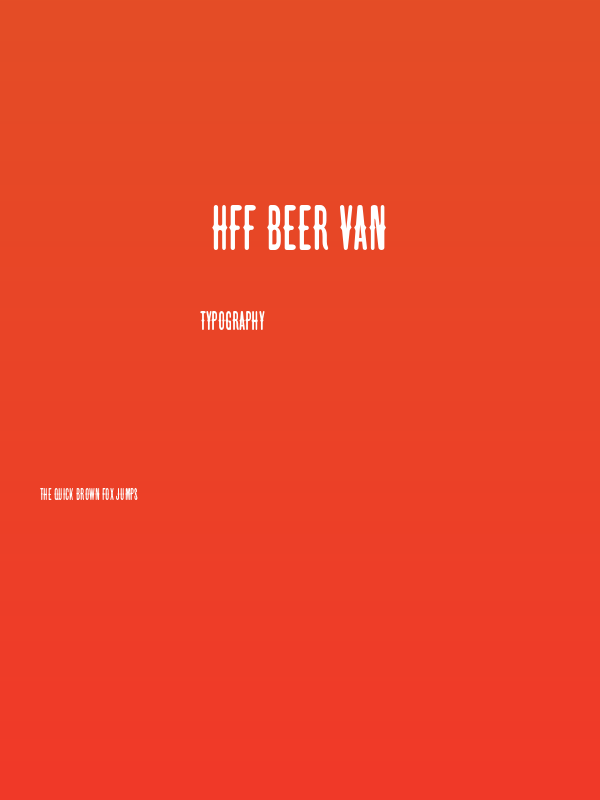
HFF Beer Van Font
HFF Beer Van Description
This font features a bold and condensed style with a distinctive vintage flair. The characters are tall and narrow, with a slight slant that adds a dynamic feel. The strokes are thick and consistent, providing a strong visual impact. The uppercase and lowercase letters maintain a uniform height, contributing to a cohesive appearance. Numbers and special characters are designed to match the overall aesthetic, making them suitable for a variety of uses. The font's unique style is reminiscent of old signage or posters, offering a nostalgic yet modern appeal.
| Proposed Projects | Ideal for retro-themed designs, posters, signage, and branding projects that require a strong visual impact. |